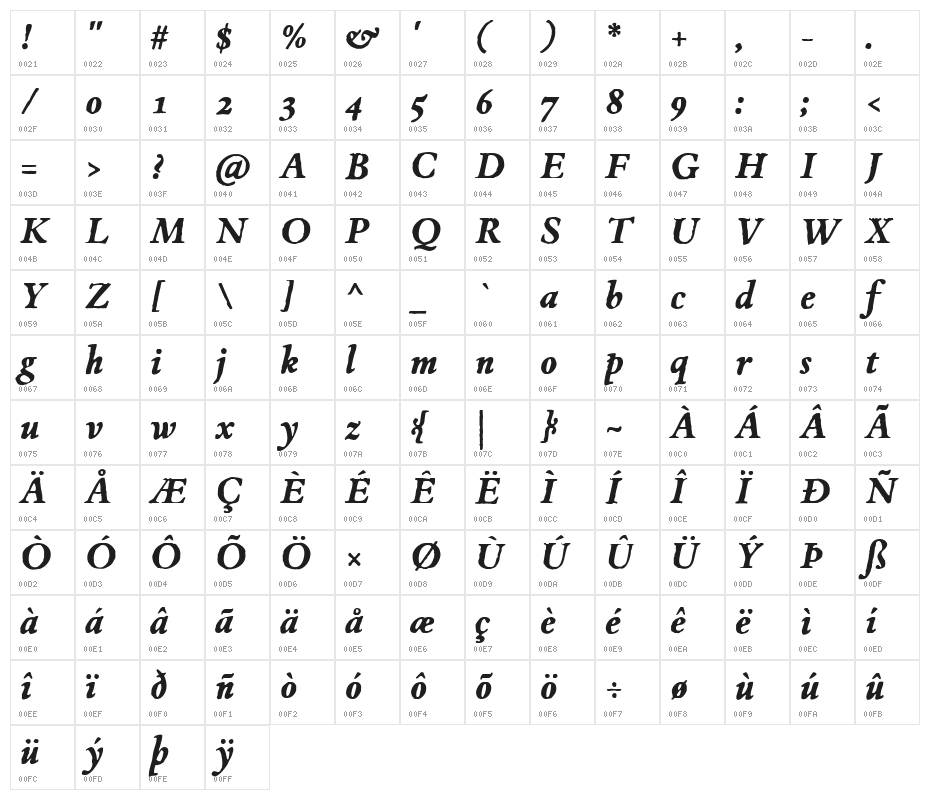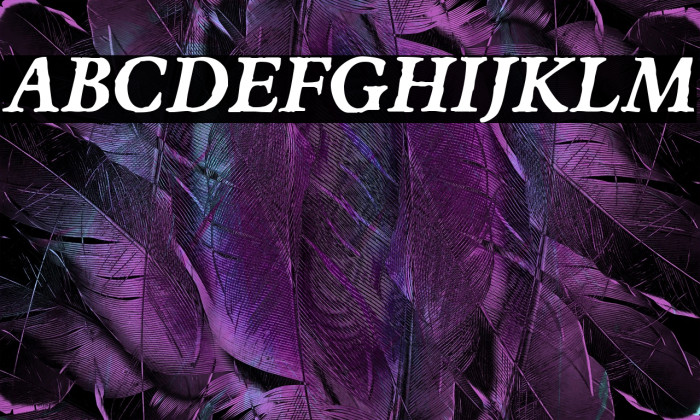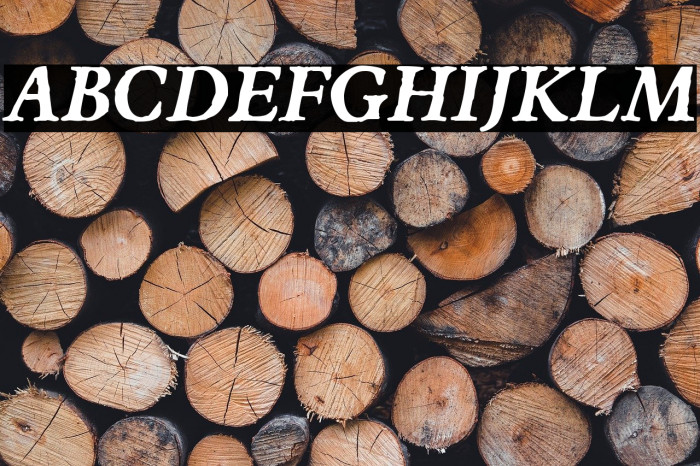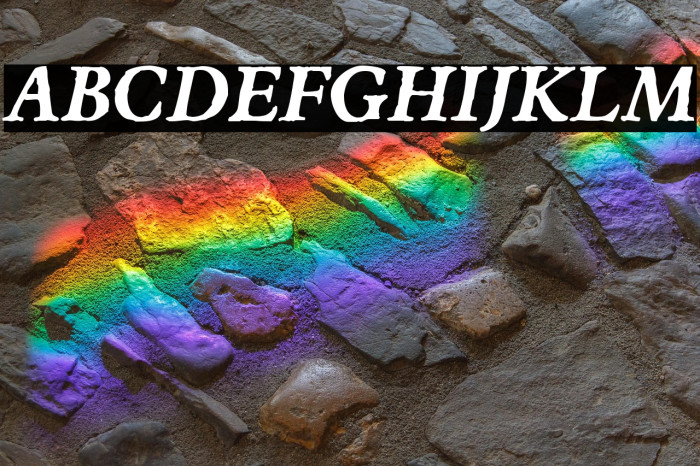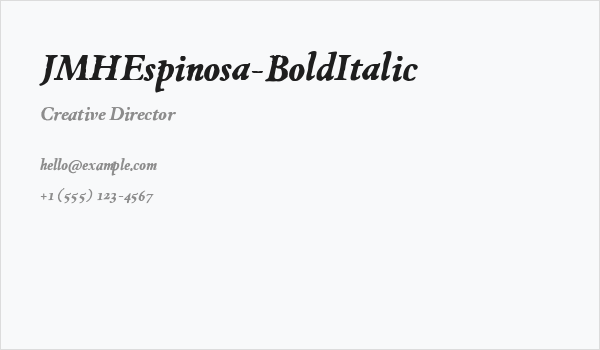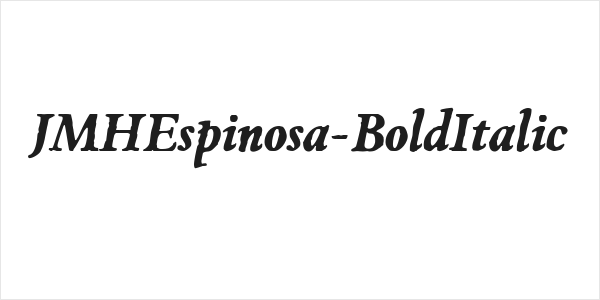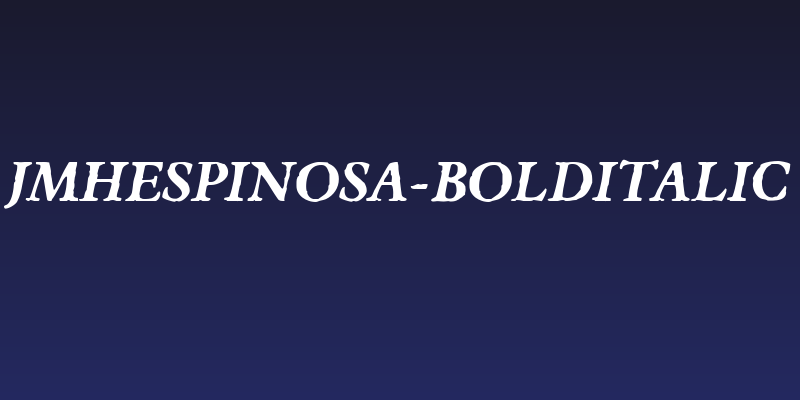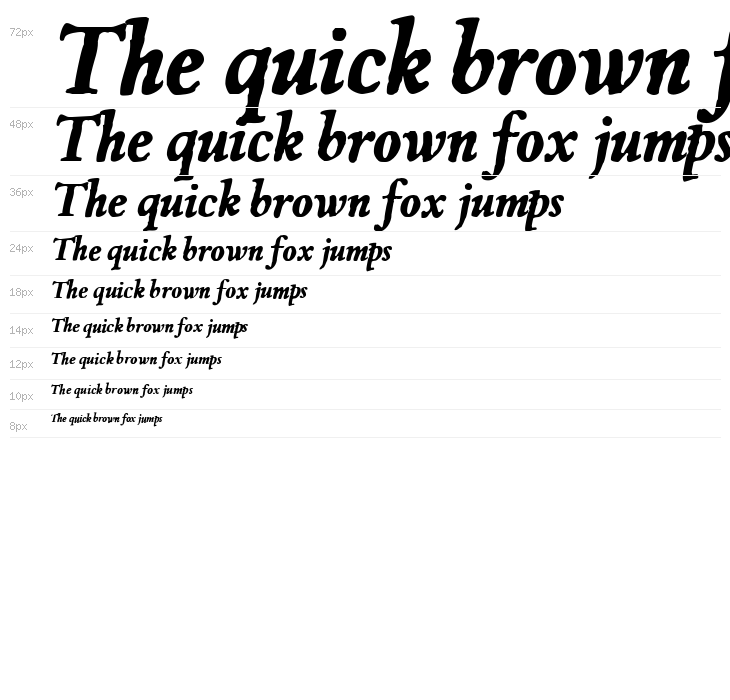
JMHEspinosa-BoldItalic Font
JMHEspinosa-BoldItalic Description
This font exhibits a bold and italicized style, characterized by its dynamic and flowing letterforms. The uppercase letters maintain a strong presence with a slight slant, adding a sense of movement and elegance. The lowercase letters are equally expressive, with distinctive curves and a consistent italic angle that enhances readability while maintaining a stylish appearance. The numerals are bold and clear, complementing the overall design with their robust structure. Special characters are thoughtfully designed to match the font's aesthetic, ensuring a cohesive look across all text elements. This font's boldness and italic nature make it suitable for impactful and creative designs.